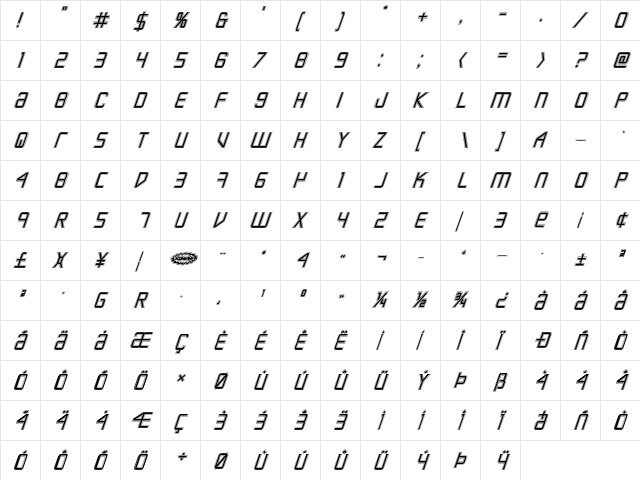
Escape Artist Academy Italic Italic
Design Context for Escape Artist Academy Italic Typeface
Escape Artist Academy Italic is a composed and adaptable typeface that performs quietly and consistently across a wide range of design contexts. The dynamic lean of this cut emphasises speed and emphasis in any layout.
Pro Tip: Use Escape Artist Academy Italic for emphasis, pull quotes, and subheadings where its slanted energy can add rhythm to the layout.